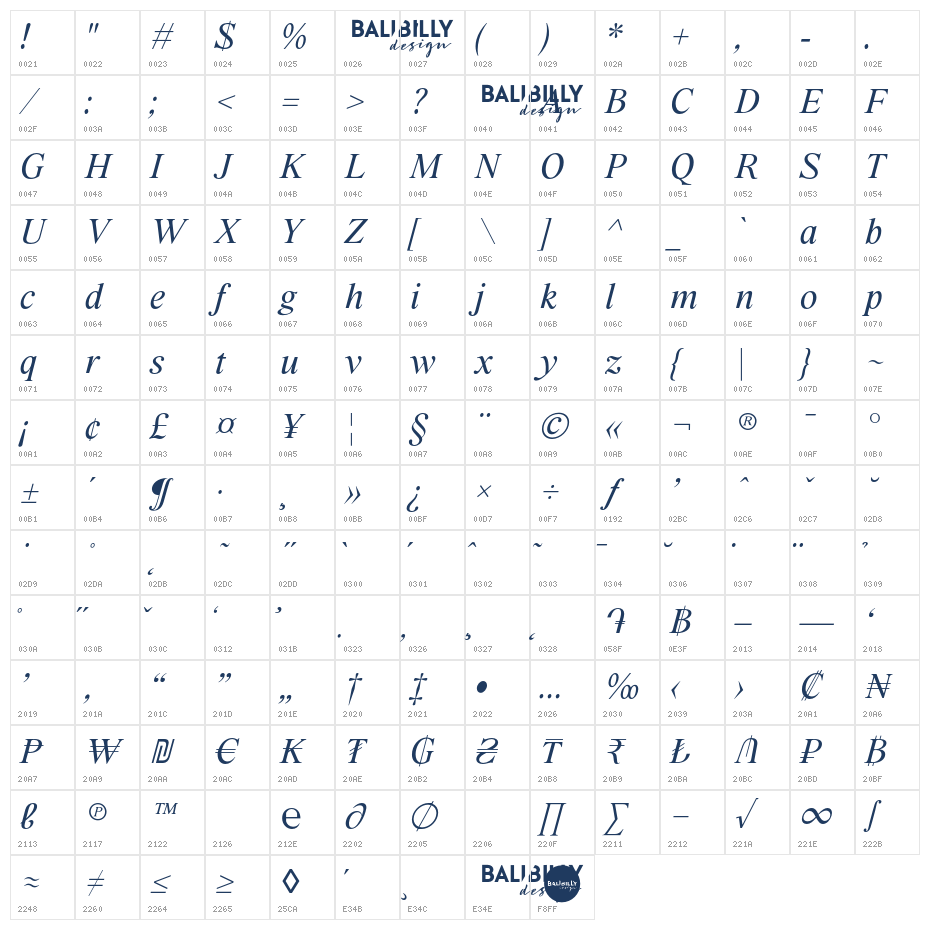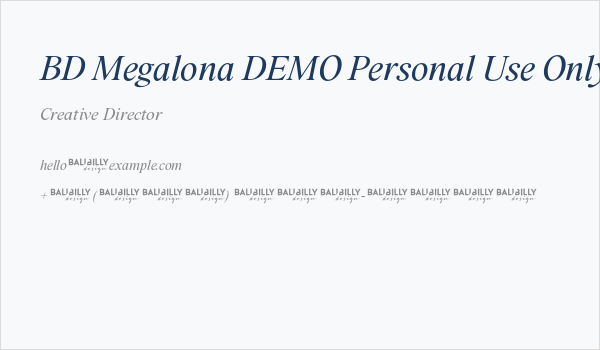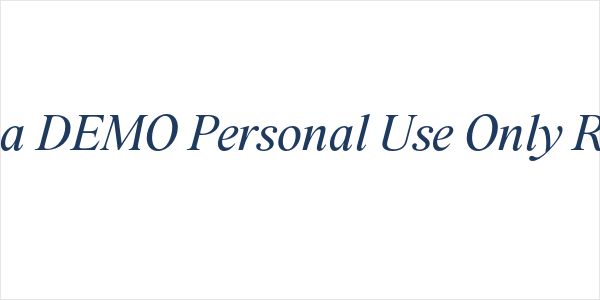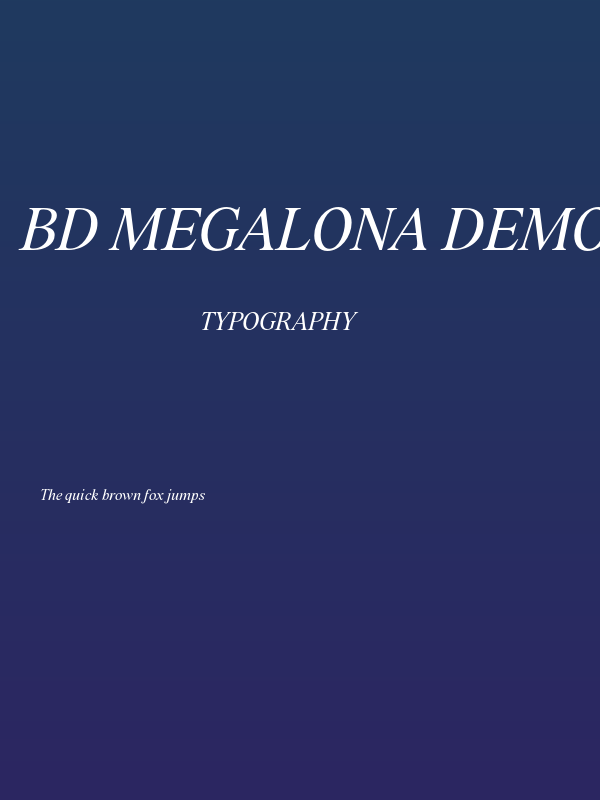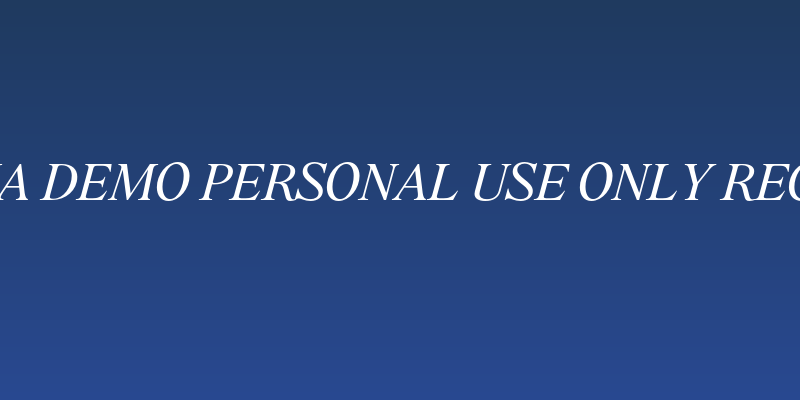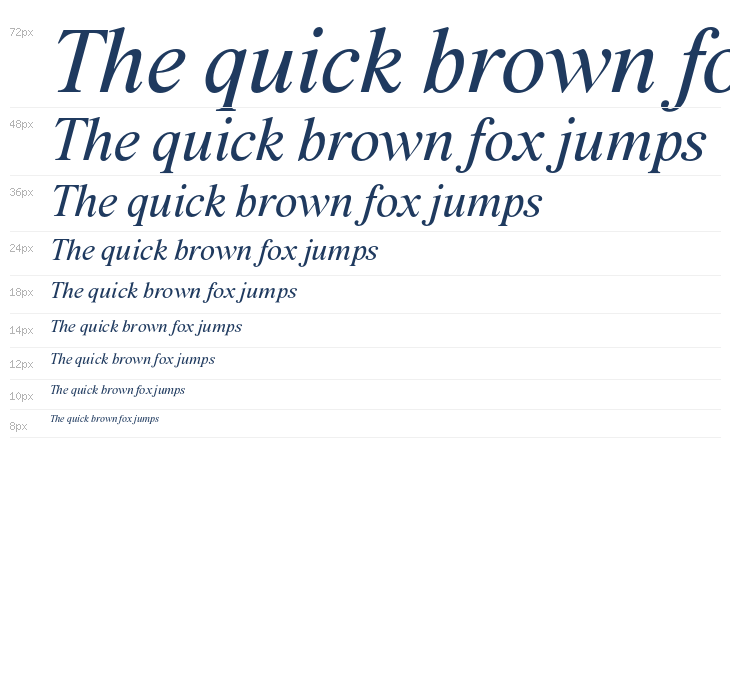
BD Megalona DEMO Personal Use Only Regular Italic Font
BD Megalona DEMO Personal Use Only Regular Italic Description
This font features a modern and elegant design with a slight slant, giving it an italic appearance. The characters are well-defined with a consistent stroke width, providing a clean and sophisticated look. The uppercase and lowercase letters are distinct, with a harmonious balance between them. Numbers and special characters are crafted to match the overall style, ensuring uniformity across all elements. The font's design is versatile, making it suitable for various applications while maintaining readability and aesthetic appeal.
BD Megalona Demo Personal Use Only
| Overall Style | Modern, Elegant |
| Use Case | Logos, Invitations, Editorial design |
| Proposed Projects | Ideal for branding, editorial design, invitations, and elegant packaging. |